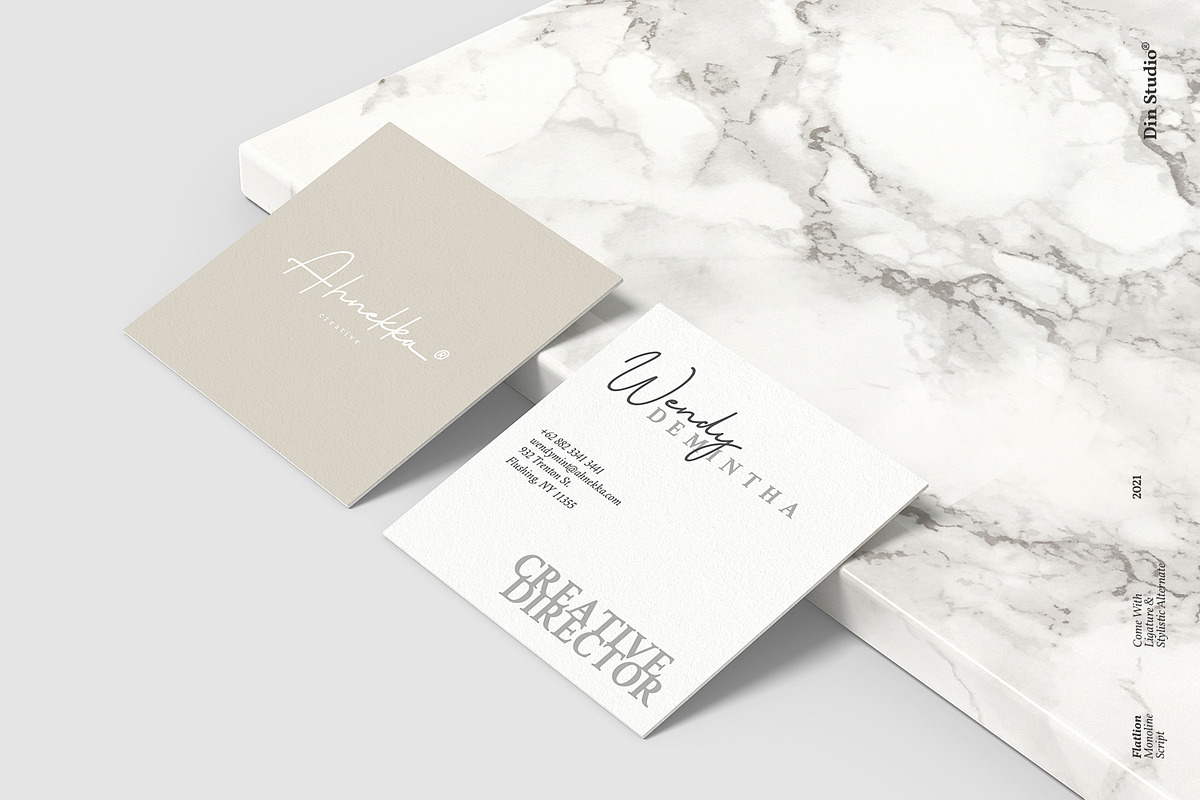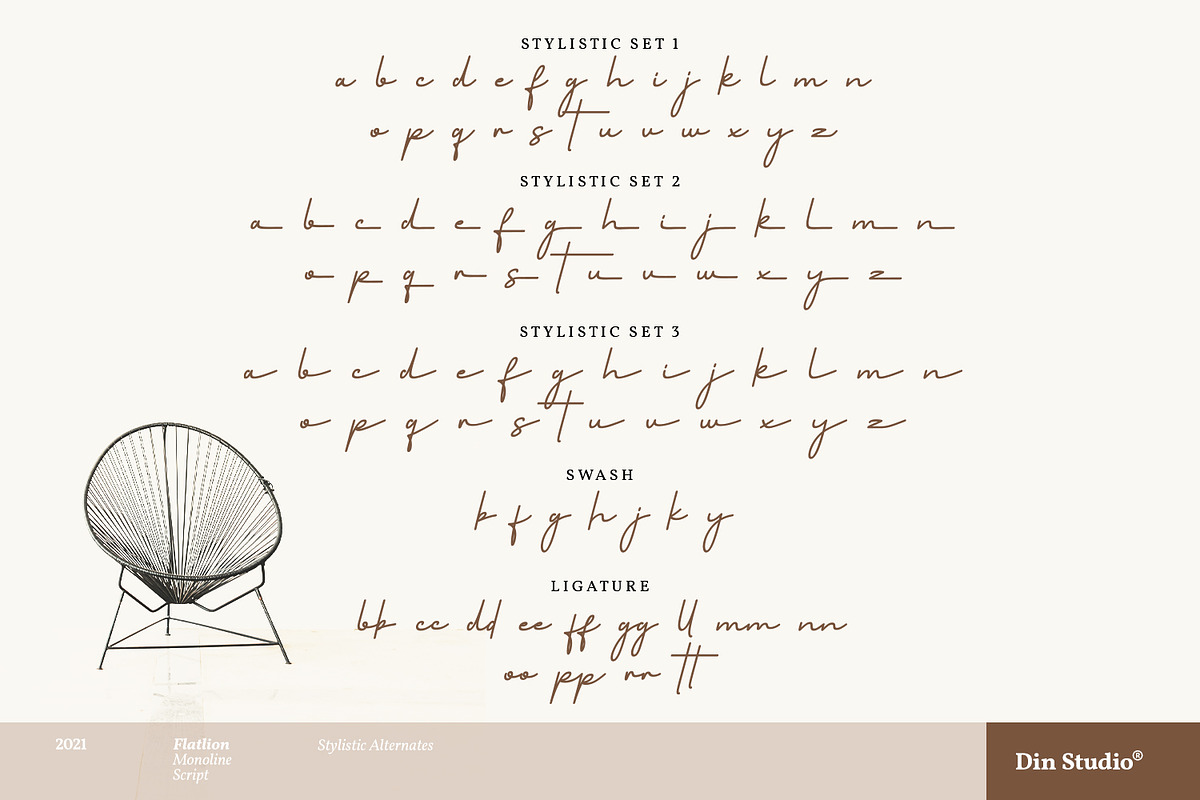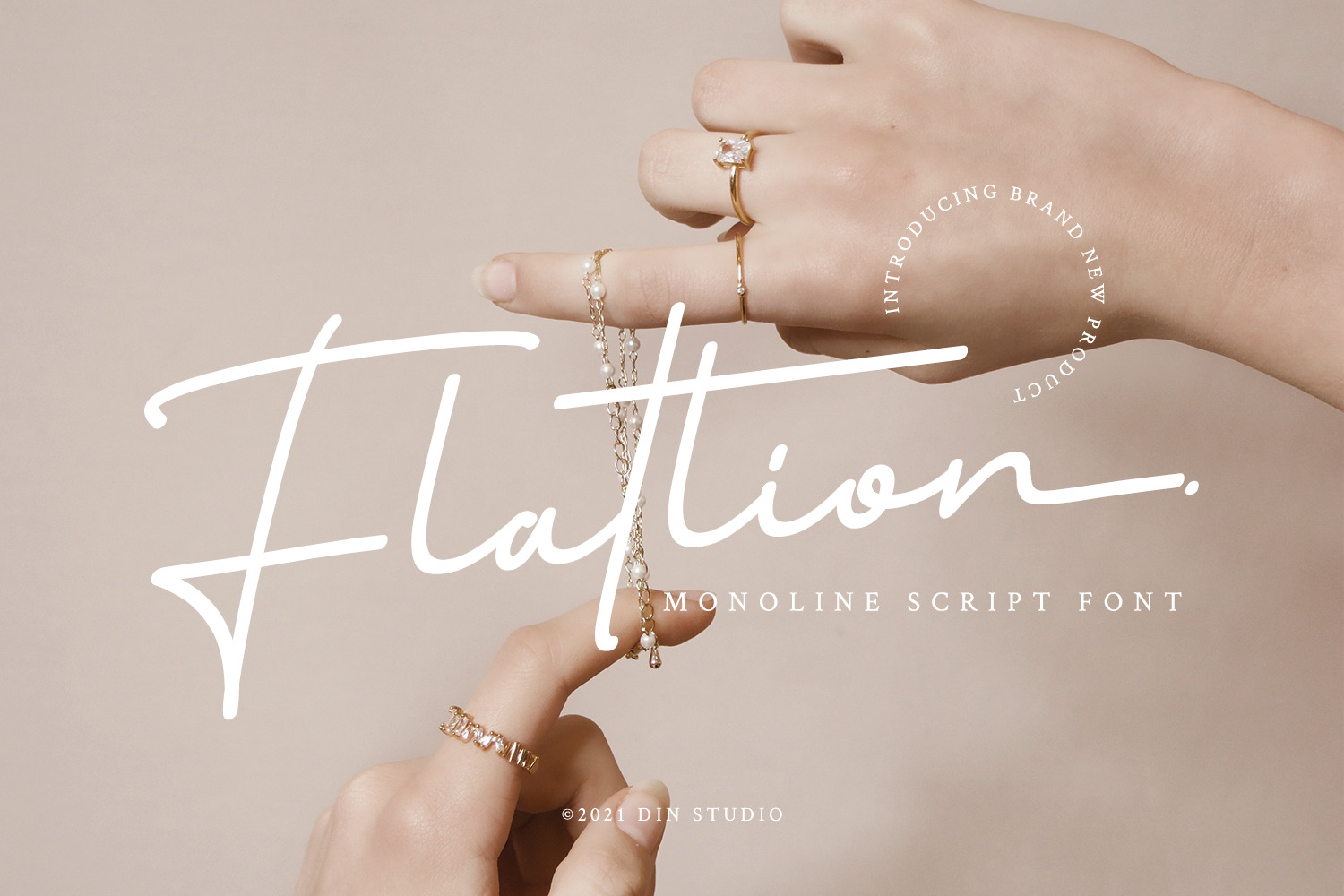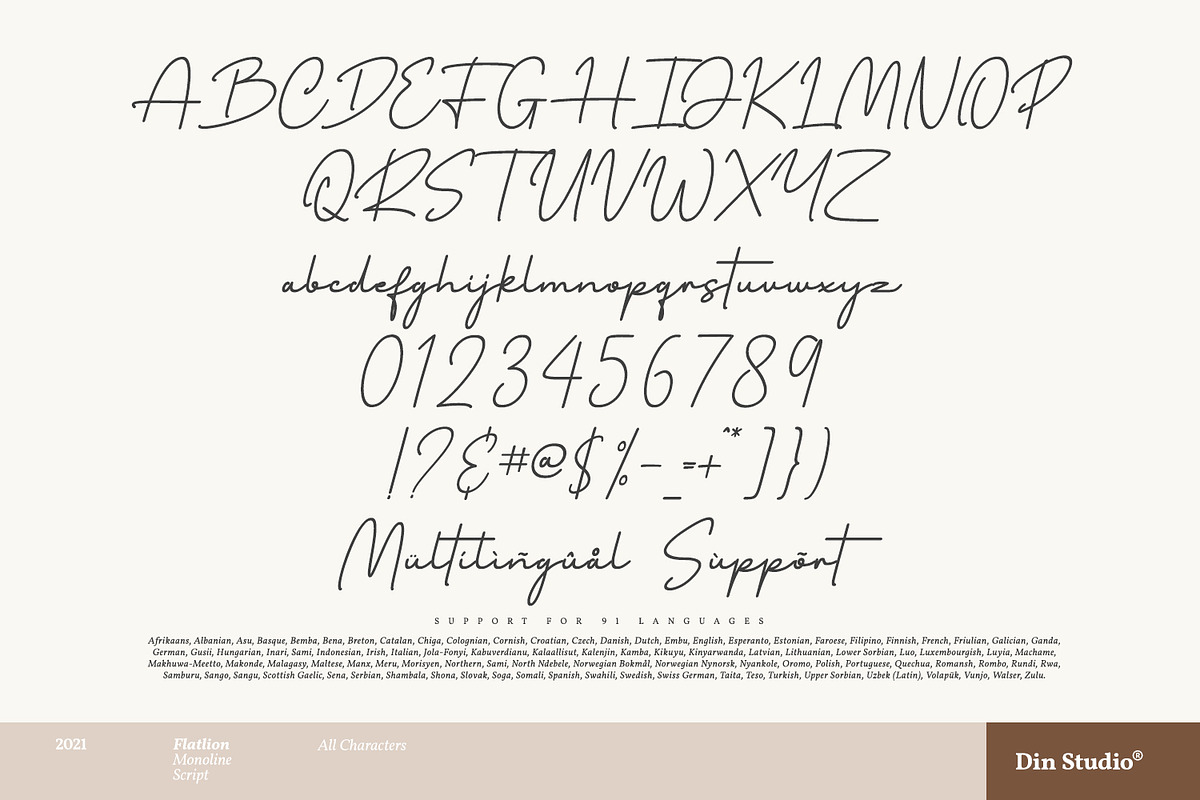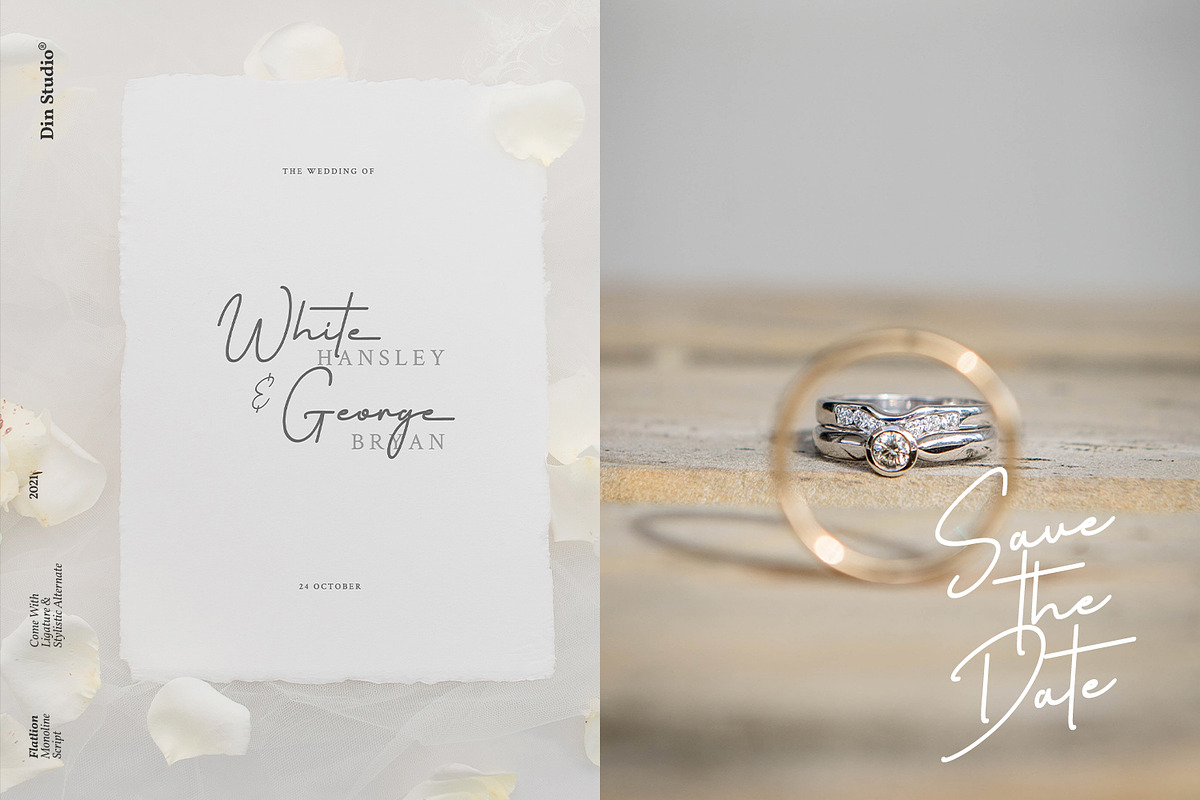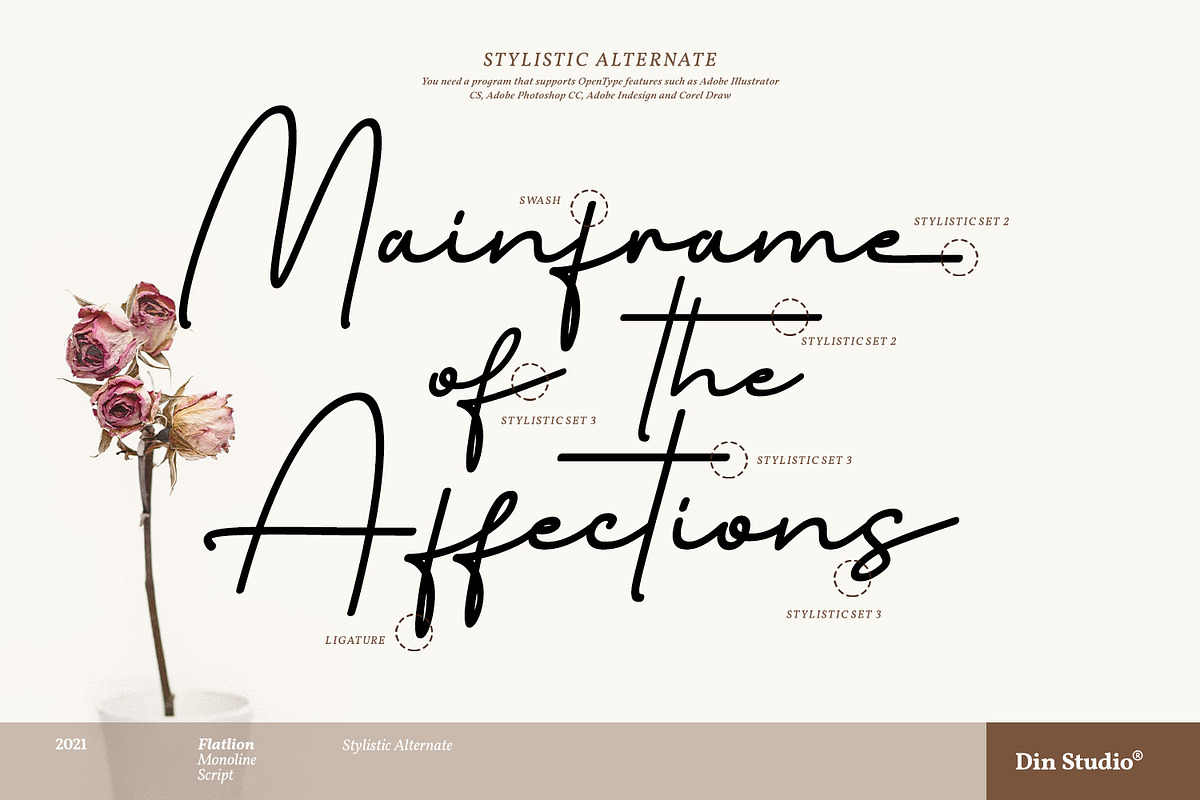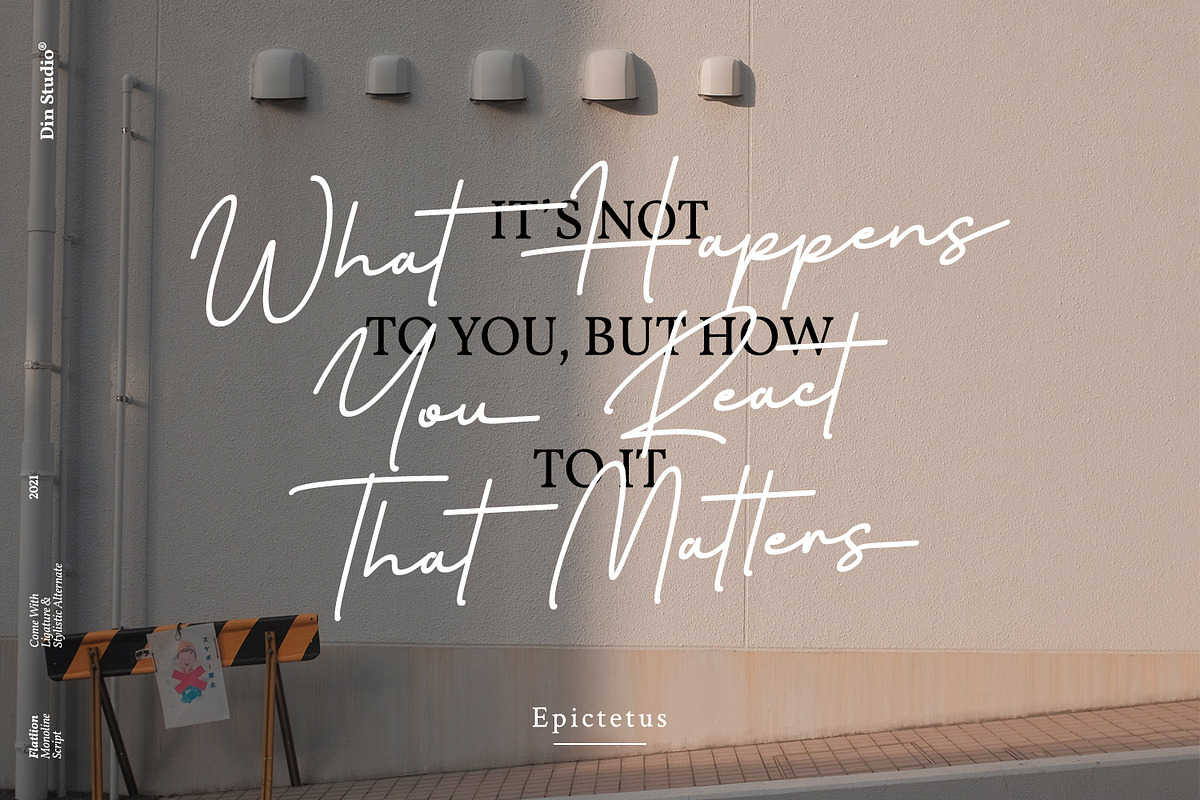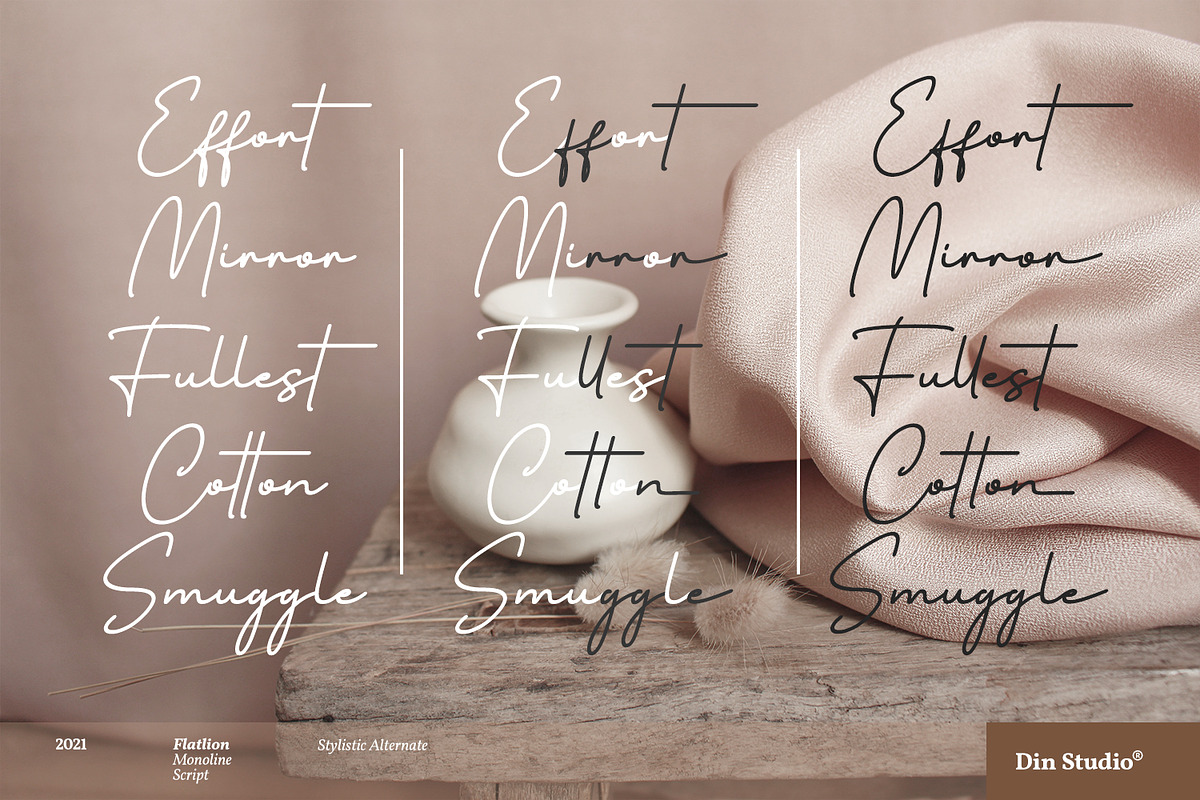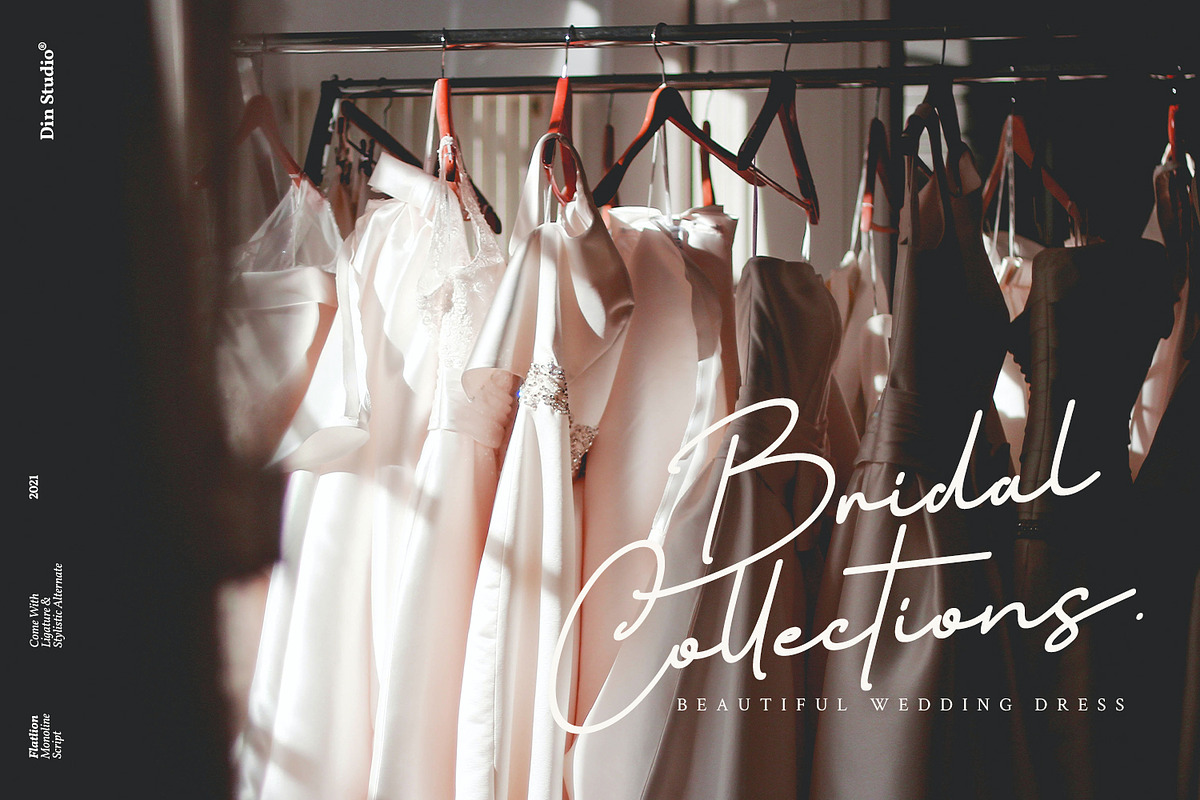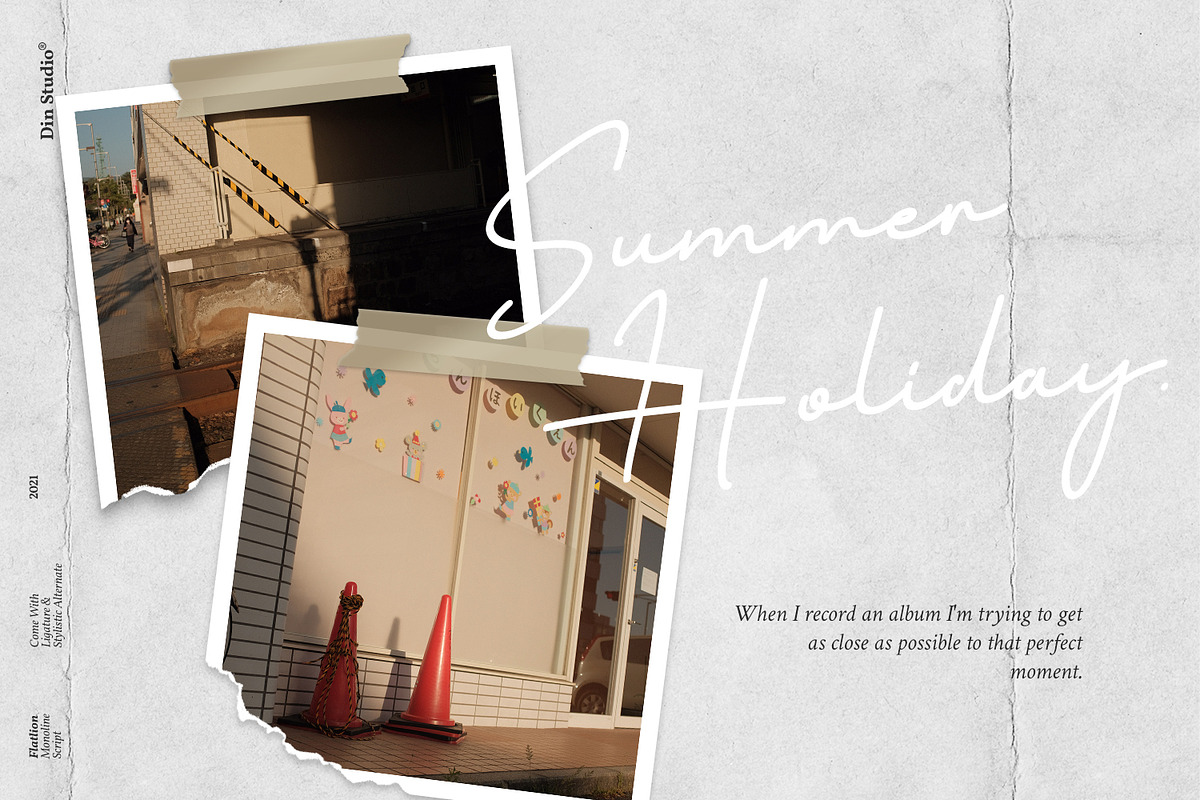
Flatlion Monoline Script Font
Hi, Everyone! If you’re looking for an elegant font to interest your audiences or customers, we’ve got the font for you! Introducing Flatlion – A Script Font.
The elegant typeface style looks very interesting for loads of different projects and promotions. It is perfect to use on your websites, social media brandings, Pinterest banners, printed products, and more! See the previews above to get some inspiration on how you can use them.
- Beautiful Ligatures
- Stylistic Set